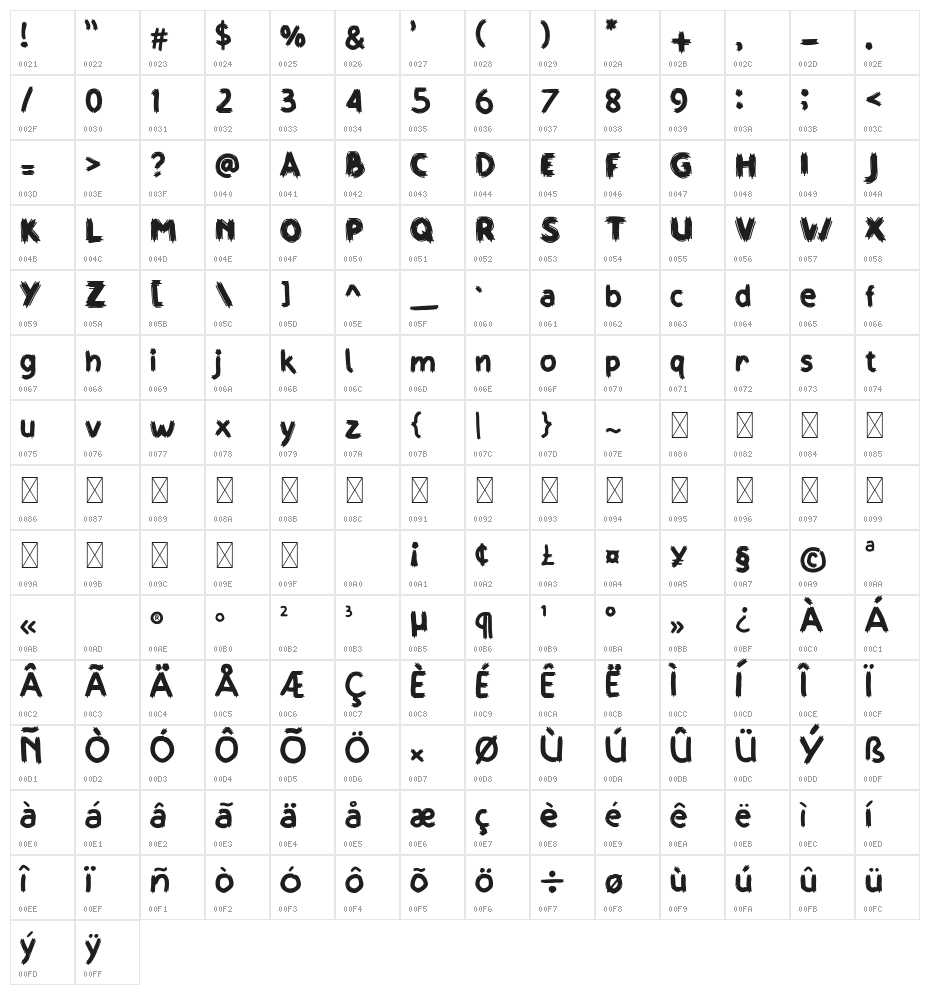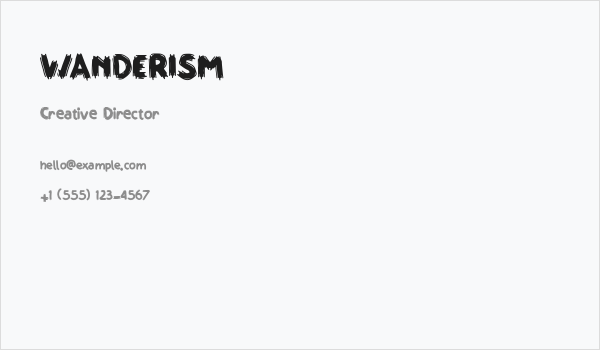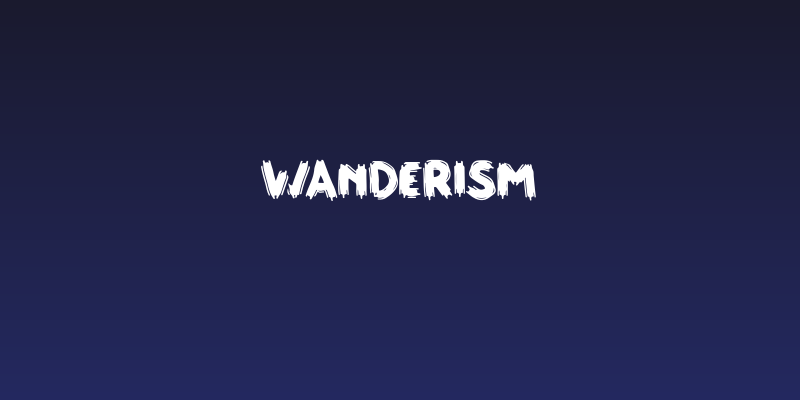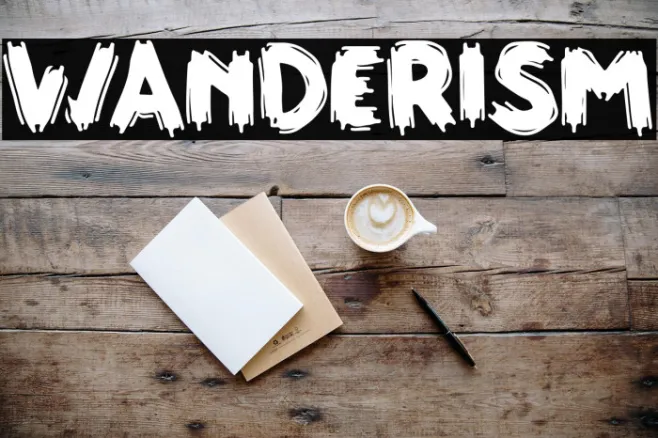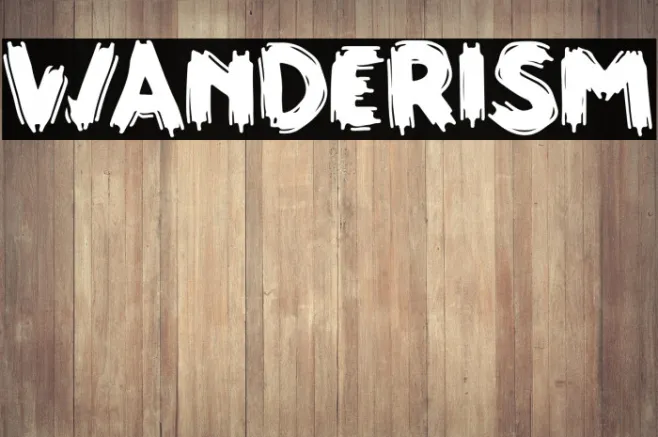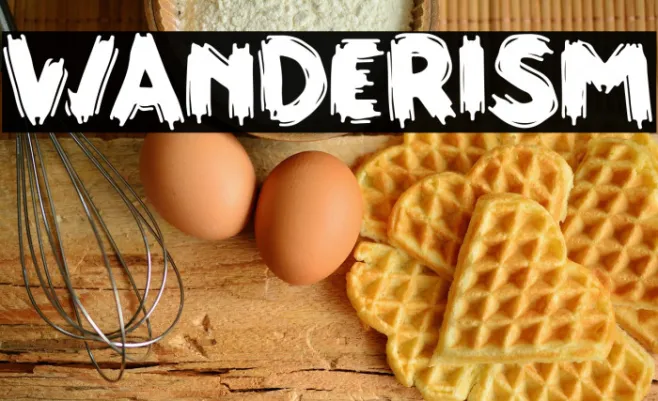
WANDERISM Font
WANDERISM Description
This font features a bold, brush-stroke style that exudes energy and dynamism. The characters are crafted with a rough, textured appearance, giving them a hand-painted look. The uppercase and lowercase letters maintain a consistent style, with thick strokes and slightly irregular edges that add to the font's artistic flair. Numbers and special characters are equally bold and expressive, making them stand out. This font is perfect for projects that require a creative and impactful visual presence.
| Proposed Projects | Ideal for posters, album covers, branding, and any project needing a bold artistic touch. |